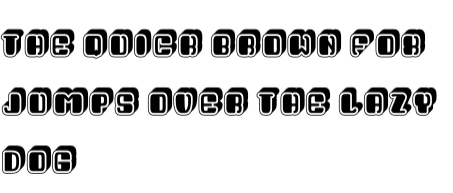
Video Font: Elevate Your Designs with the Awesome 3D Font Family
When it comes to creating visually stunning designs, the right font can make all the difference. If you’re looking for a font that can add a touch of excitement and energy to your projects, look no further than Video Font. This awesome 3D font family is perfect for making your designs stand out, whether you’re working on posters, flyers, t-shirts, or any other type of visual material.
What is Video Font?
Video Font is a unique and versatile 3D font family that is designed to add a dynamic and eye-catching element to your designs. With its bold and futuristic look, this font is perfect for creating attention-grabbing headlines, titles, and slogans. Whether you’re a graphic designer, a marketer, or a DIY enthusiast, Video Font is an excellent choice for anyone looking to add a professional touch to their designs.
Key Features of Video Font
So, what makes Video Font so special? Here are some of its key features:
- 3D Effect: Video Font has a stunning 3D effect that gives it a raised and dimensional look. This effect can be customized to fit your design needs, allowing you to create a unique and eye-catching visual effect.
- Bold and Futuristic: The font has a bold and futuristic look that is perfect for creating attention-grabbing headlines and titles. Its sleek and modern design makes it ideal for a wide range of design projects.
- Versatile: Video Font is a versatile font family that can be used on a variety of design materials, including posters, flyers, t-shirts, and more.
- Easy to Use: Despite its complex 3D effect, Video Font is surprisingly easy to use. It comes with a simple and intuitive design that makes it easy to customize and adjust to fit your design needs.
Uses of Video Font
So, what can you use Video Font for? The possibilities are endless! Here are some ideas to get you started:
- Posters: Use Video Font to create eye-catching posters that grab attention and communicate your message effectively.
- Flyers: Add a touch of excitement to your flyers with Video Font. Its bold and futuristic look is perfect for promoting events, products, or services.
- T-Shirts: Create stunning t-shirt designs with Video Font. Its 3D effect and bold look make it perfect for creating eye-catching and memorable designs.
- Logos and Branding: Use Video Font to create unique and memorable logos and branding materials. Its versatility and customizability make it an excellent choice for businesses and individuals looking to create a strong brand identity.
Benefits of Using Video Font
So, why should you use Video Font for your design projects? Here are some benefits to consider:
- Stand Out: Video Font is designed to grab attention and make your designs stand out. Its unique 3D effect and bold look ensure that your message gets noticed.
- Professional Look: With Video Font, you can create professional-looking designs that are perfect for businesses, events, and promotions.
- Customizability: Video Font is highly customizable, allowing you to adjust its size, color, and effect to fit your design needs.
- Easy to Use: Despite its complex 3D effect, Video Font is surprisingly easy to use. It comes with a simple and intuitive design that makes it easy to customize and adjust to fit your design needs.
Tips and Tricks for Using Video Font
Here are some tips and tricks to help you get the most out of Video Font:
- Experiment with Colors: Video Font looks great in bold and bright colors. Experiment with different colors to find the one that works best for your design.
- Adjust the Size: Adjust the size of the font to fit your design needs. A larger size can create a more dramatic effect, while a smaller size can create a more subtle look.
- Combine with Other Fonts: Video Font looks great when combined with other fonts. Experiment with different font combinations to create a unique and eye-catching visual effect.
Video Font is an awesome 3D font family that can elevate your designs to the next level. Its bold and futuristic look, versatility, and customizability make it an excellent choice for a wide range of design projects. Whether you’re a graphic designer, a marketer, or a DIY enthusiast, Video Font is a great addition to your font library. So why not give it a try and see the difference it can make in your designs?